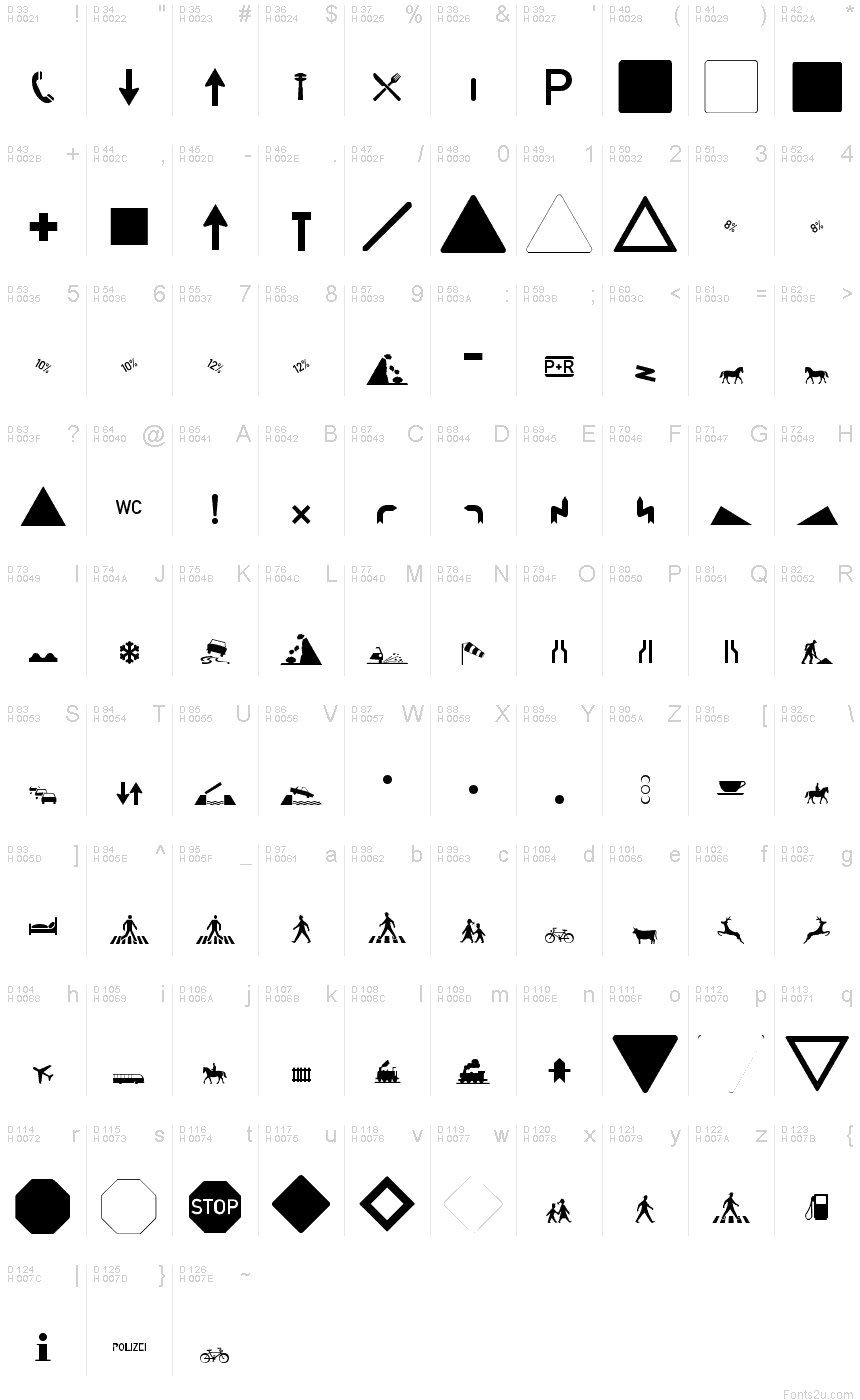
Zeichen Hundert Alt
Older versions of german traffic signs between 1938 and 1990. Same style as ma other traffic sign font, but with all the obsolete designs.